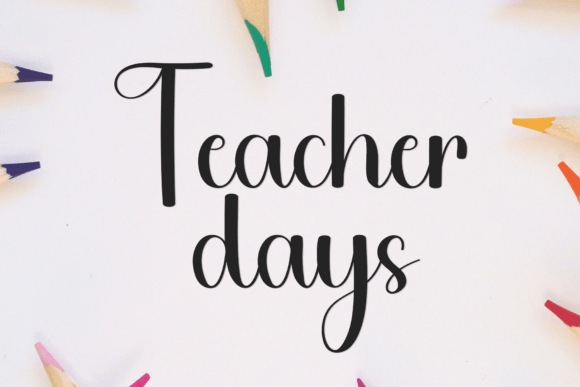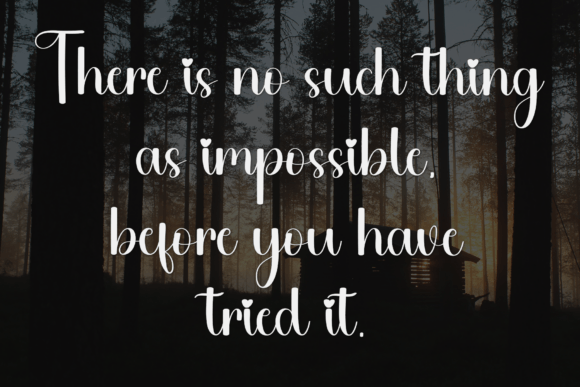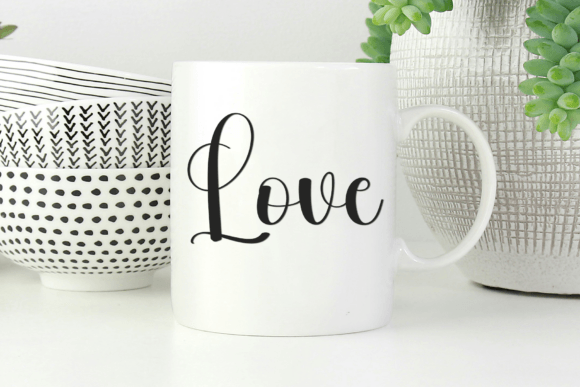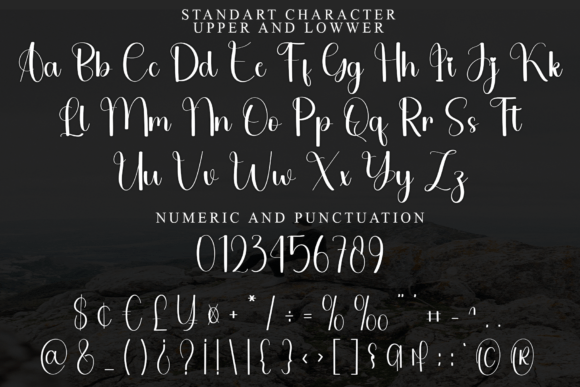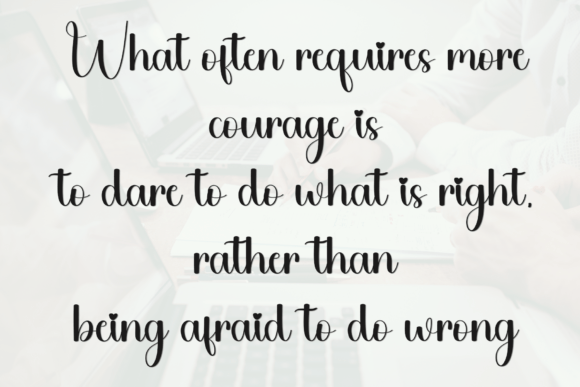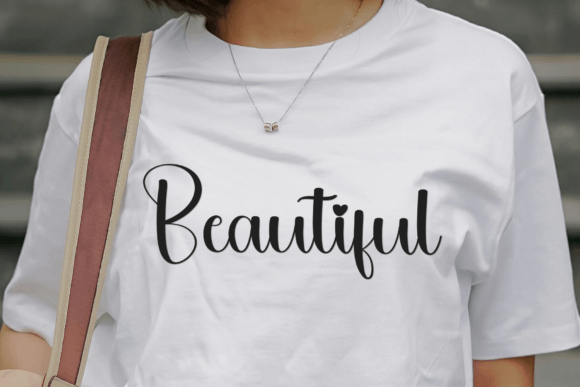
Discover the Unique Charm of Blacklist Font: Elevate Your Designs with a Soft and Eye-Catching Style
In the world of typography, a font can make all the difference in the success of a design project. Whether you’re a professional designer, a crafty DIY enthusiast, or a creative entrepreneur, finding the right font can be a game-changer. If you’re on the hunt for a beautiful and versatile font that adds a touch of uniqueness to your work, look no further than the Blacklist Font. Designed with a soft and distinctive touch, this stunning font is sure to capture the attention of your audience and elevate your designs to new heights.
The Distinctive Characteristics of Blacklist Font
Blacklist Font boasts a range of distinctive characteristics that set it apart from other fonts. Its soft and unique touch gives it a special charm, making it perfect for a wide range of design projects. The font’s strokes are carefully crafted to create a visually appealing effect that adds a touch of elegance to any design. Whether you’re working on a logo, a brochure, or a social media graphic, Blacklist Font is sure to make your design stand out from the crowd.
One of the best things about Blacklist Font is its versatility. With a range of characters to choose from, you can use this font for a wide range of design projects, from crafts and DIY projects to professional design work. The font is compatible with various applications, including Windows and open-source platforms, making it easy to use across different devices and software. Whether you’re a professional designer or a DIY enthusiast, Blacklist Font is the perfect choice for any project.
Blacklist Font is a designer’s dream come true. Its unique and eye-catching style makes it perfect for a wide range of design projects, from logos and branding to posters and social media graphics. The font’s soft and elegant touch also makes it ideal for crafts and DIY projects, such as handmade cards, invitations, and scrapbooking. With Blacklist Font, you can add a touch of professionalism and style to any project, making it perfect for designers, crafters, and DIY enthusiasts alike.
Enhance Your Designs with Blacklist Font
So, how can Blacklist Font enhance your designs? For starters, the font’s unique and eye-catching style is sure to capture the attention of your audience. Its soft and elegant touch adds a touch of sophistication to any design, making it perfect for professional design work. The font’s versatility also makes it easy to use across different devices and software, making it a great choice for designers who work on multiple projects and platforms.
Why Choose Blacklist Font?
So, why choose Blacklist Font over other fonts? Here are just a few reasons why this font stands out from the rest:
- Unique and eye-catching style: Blacklist Font boasts a unique and eye-catching style that’s sure to capture the attention of your audience.
- Soft and elegant touch: The font’s soft and elegant touch adds a touch of sophistication to any design.
- Versatility: Blacklist Font is compatible with various applications and devices, making it easy to use across different platforms.
- Perfect for design projects and crafts: The font is perfect for a wide range of design projects, from logos and branding to crafts and DIY projects.
In conclusion, Blacklist Font is a beautiful and versatile font that’s perfect for designers, crafters, and DIY enthusiasts alike. Its unique and eye-catching style, soft and elegant touch, and versatility make it a great choice for a wide range of design projects. Whether you’re working on a professional design project or a DIY craft, Blacklist Font is sure to elevate your designs and make them appealing to a wide range of audiences. So why wait? Download Blacklist Font today and discover the unique charm of this stunning font for yourself!